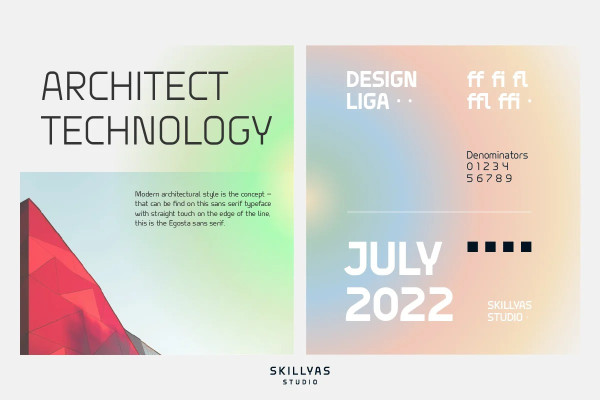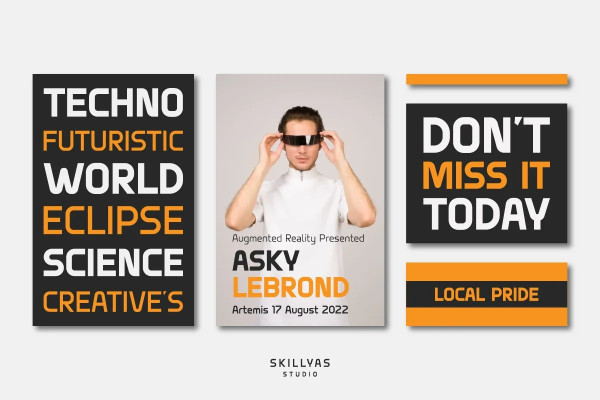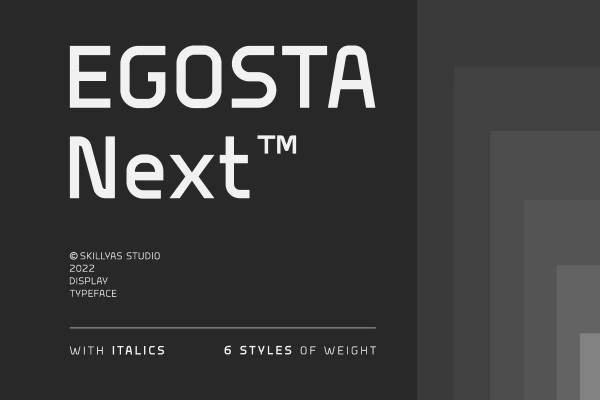
Egosta Font
EGOSTA Font is a complete sans serif family. The letterform and sharp variations characterize a bold and playful typeface in a graphic layout, making it perfect for modern and futuristic visual needs. EGOSTA complete family contains 6 styles with two axes; Weight and Width, from Thin to Bold.